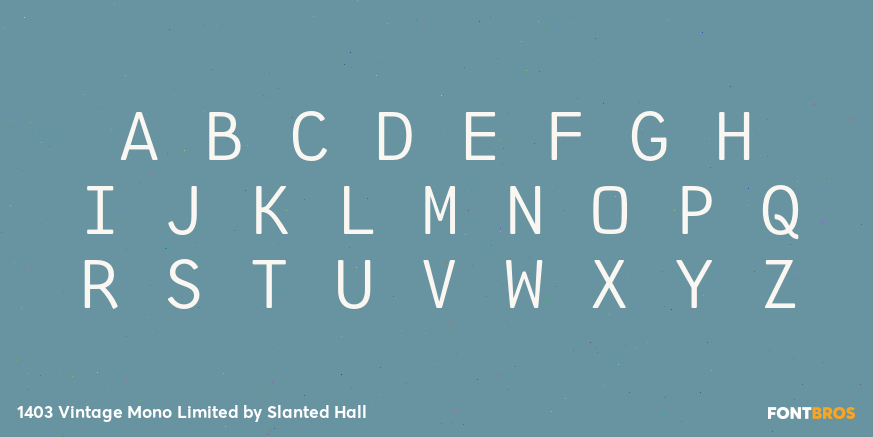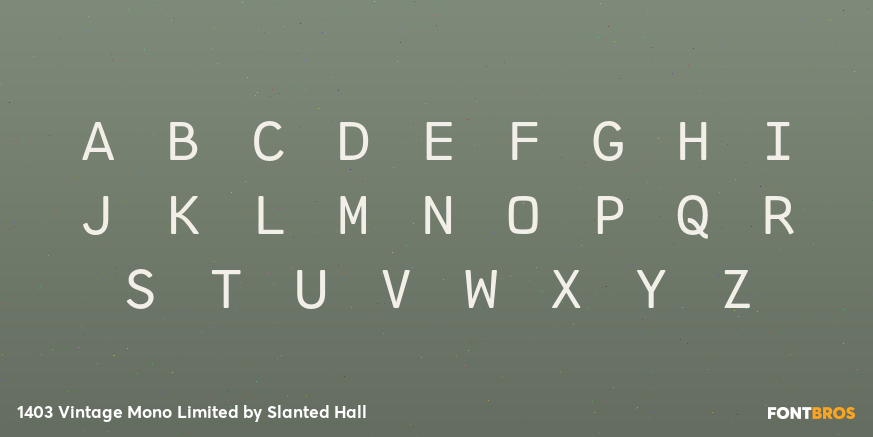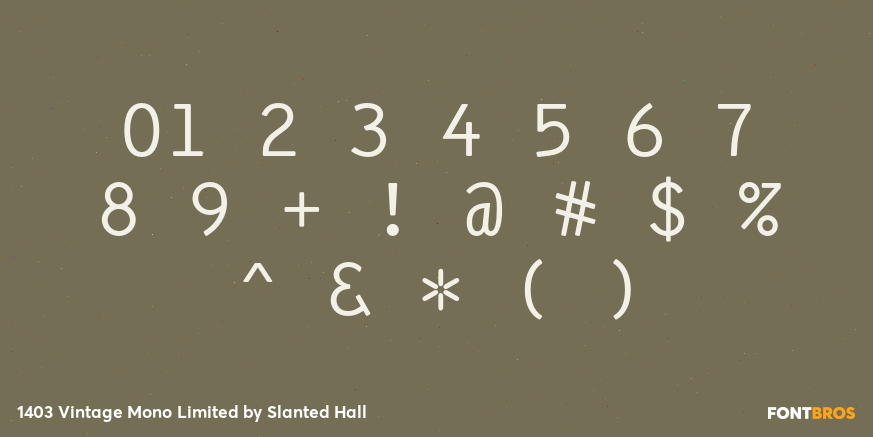
1403 Vintage Mono Limited
"I may steal that" you may see that again.- Matthew Carter, in reference to a glyph design in 1403 Vintage Mono Pro.
The idea to create this typeface was sparked by Mark VandeWettering wondering aloud if a font existed reminiscent of that printer. 1403 Vintage Mono Limited includes the original 52 characters making up the A and H chains, along with the basic complement of Latin characters. Small capital forms are included to act as lowercase. This font includes a few OpenType features: ordinals, superscripts